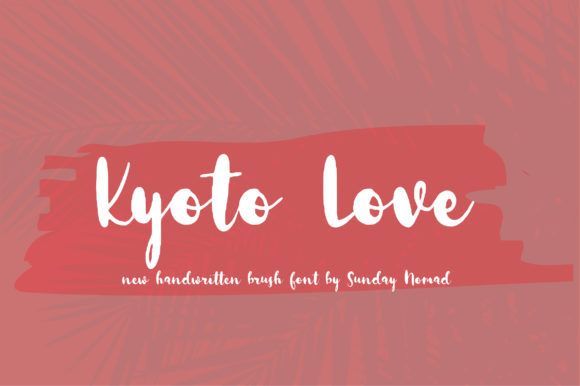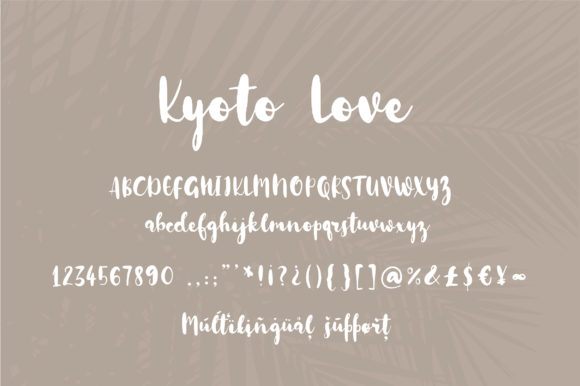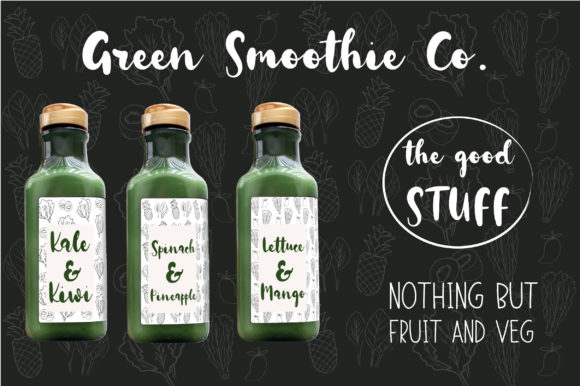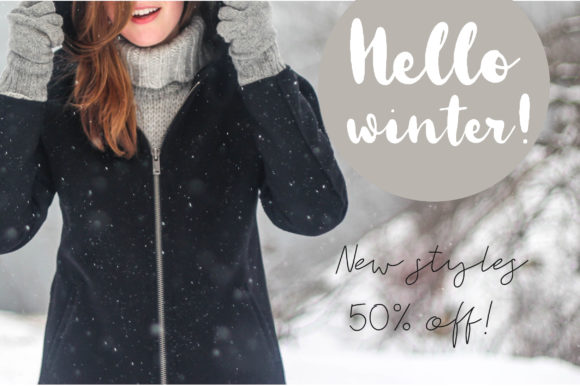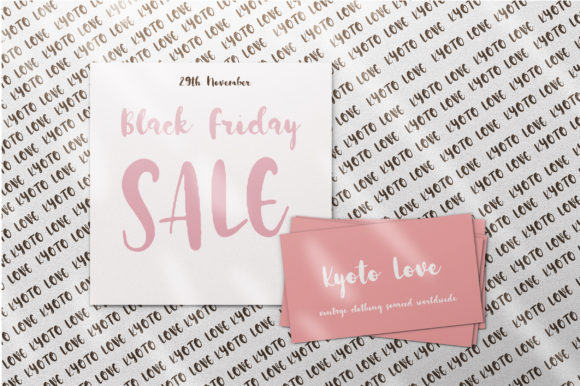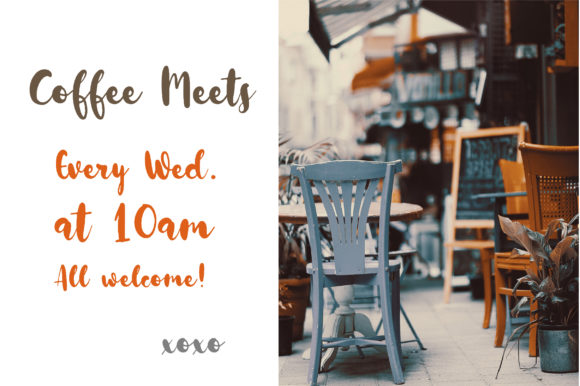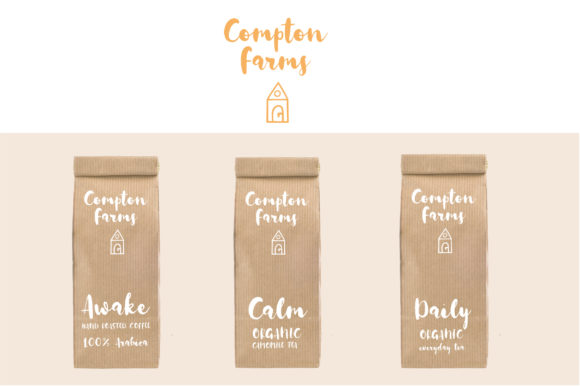
Kyoto Love Font
About Kyoto Love Font
Kyoto Love is a handwritten brush font. It’s perfect for logos, product packaging, merchandising, magazines, social media posts and much more.